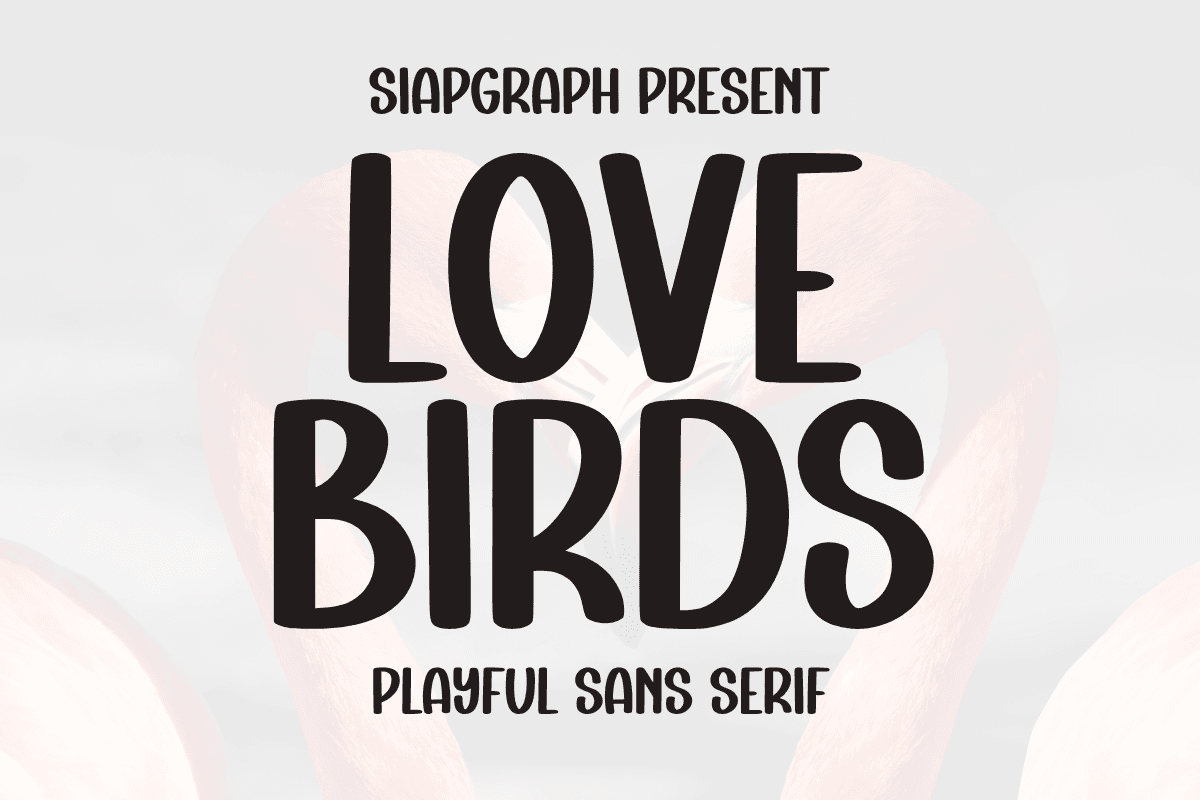
Introducing Love Birds Font: A Playful Addition to Your Sans Serif Font Collection When it comes to sans serif fonts, Love Birds stands out as a delightful choice for designers and creatives alike. This whimsical typeface embodies a fun and charming ...